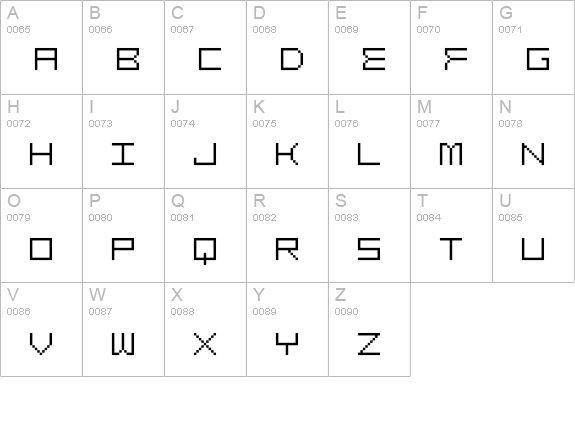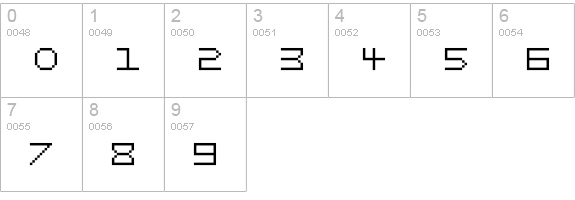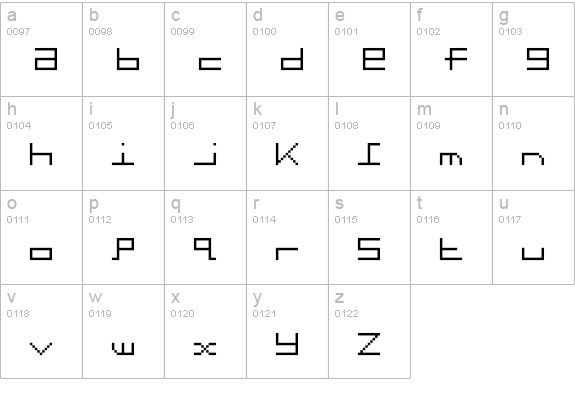
Gridder-OFF Font Details
Gridder-OFF font is a striking display typeface that combines modern aesthetics with a unique gridded design. Its bold and geometric letterforms make it perfect for eye-catching headlines, branding materials, and poster designs. The clean lines and sharp angles of Gridder-OFF give it a contemporary and edgy feel, making it a versatile choice for various design projects. This font is available for free download at FontsMarket.com, where you can easily access it and incorporate it into your creative endeavors without any cost. Whether you're a graphic designer looking to add a modern touch to your work or a business owner in need of a fresh and stylish font for your marketing materials, Gridder-OFF offers a unique and captivating option that is sure to make your designs stand out. Enhance your projects with the sleek and dynamic look of Gridder-OFF, and unleash your creativity with this freely accessible font.